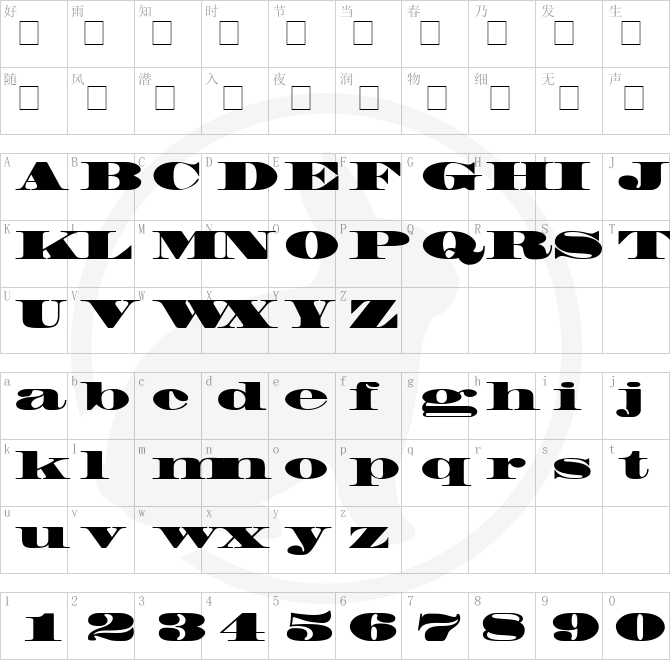
• Font Name:Facade SSi
• Subfamily:Black
• Subfamily:FontMonger:Facade SSi Black
• Full Name:Facade SSi Black
Facade-SSi-Black.ttf is a very beautiful artistic font, Facade-SSi-Black.ttf is widely used in the design and printing of various books and pictures,Facade-SSi-Black.ttf has a strong visual impact,Facade-SSi-Black.ttf is a commonly used font in newspapers, magazines and books, and is used in posters, e-commerce Poster design, store design, logo design, font design and other fields.Facade-SSi-Black.